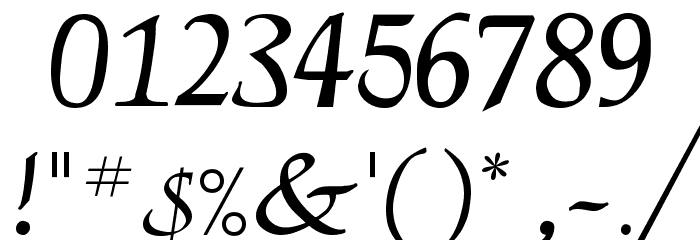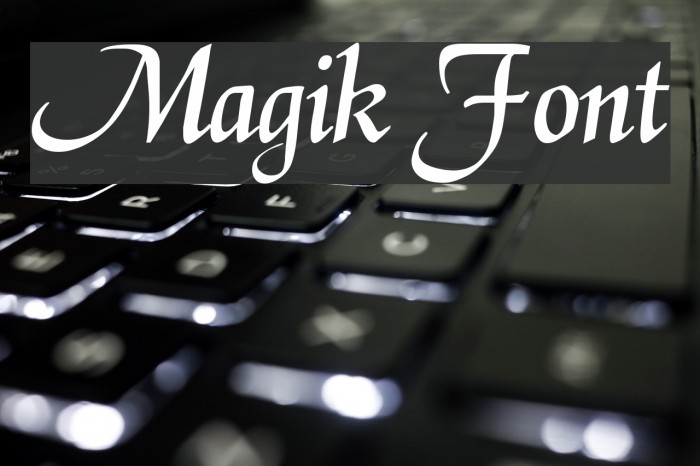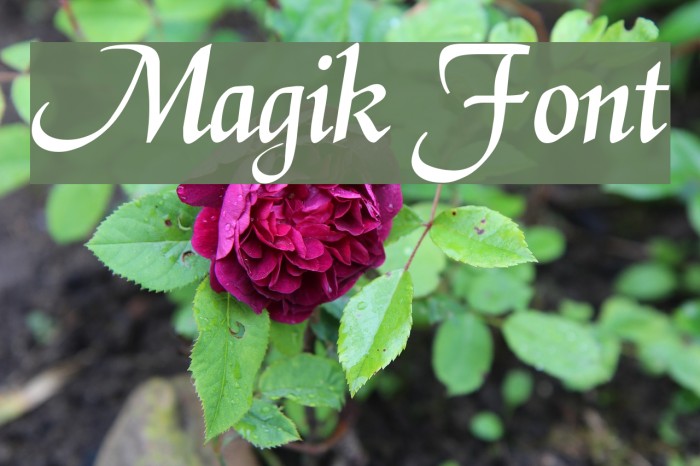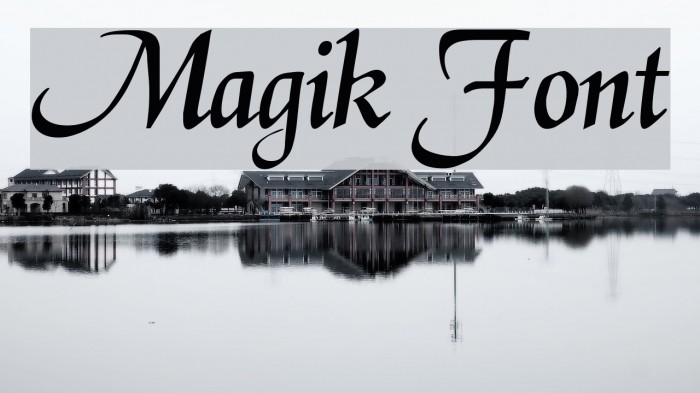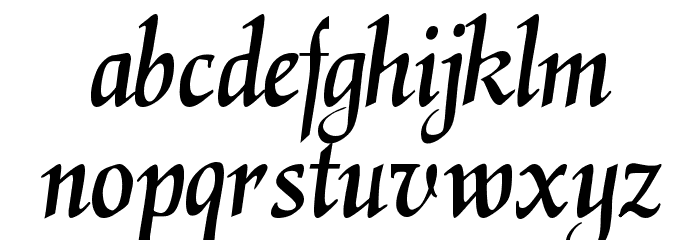
Magik Font
Magik Description
This font features a dynamic and elegant script style with a calligraphic flair. The uppercase letters are characterized by sweeping curves and flourishes, giving them a sense of movement and sophistication. The lowercase letters maintain a consistent flow, with some characters extending below the baseline, adding to the font's graceful appearance. The numerals are bold and slightly condensed, ensuring readability while maintaining the overall aesthetic. Special characters are designed to complement the letterforms, with a harmonious blend of curves and angles. This font is well-suited for projects that require a touch of elegance and artistic expression.
| Overall Style | Elegant, Artistic |
| Use Case | Headlines, Invitations, Branding |
| Proposed Projects | Ideal for wedding invitations, elegant branding, artistic posters, and decorative headlines. |